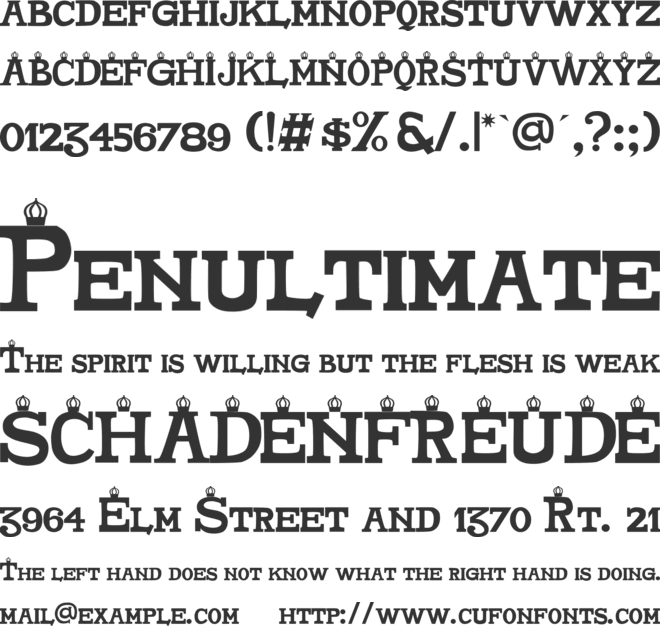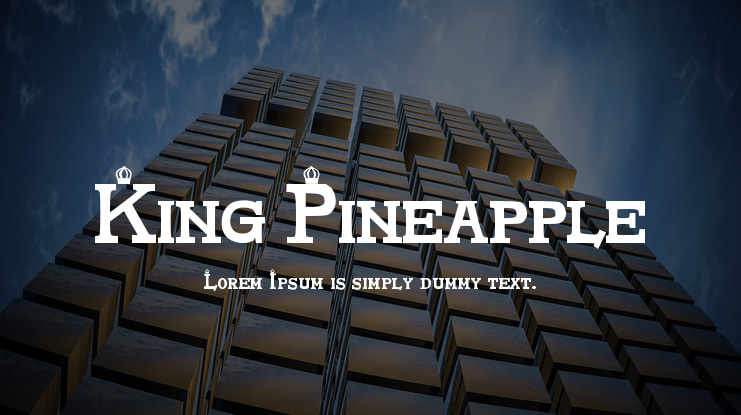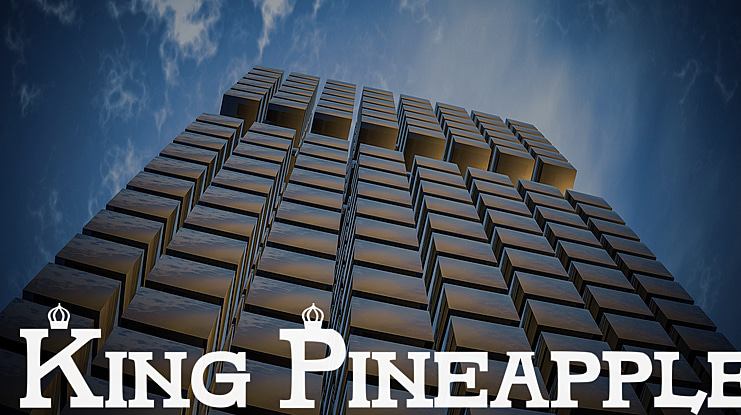
King Pineapple Font
The first version of this font included crowns for the capital letters, only they were too schematic and suggested tiny pineapples in lower resolutions. I re-drew the crowns later but the name stayed.